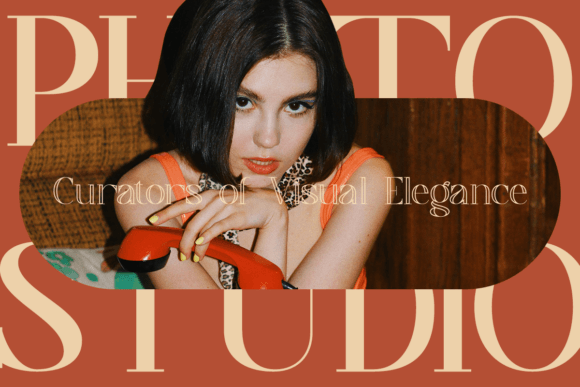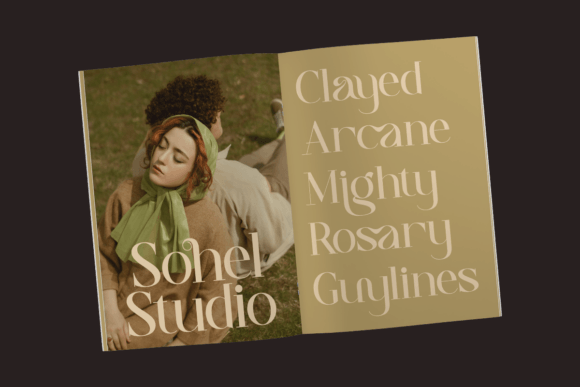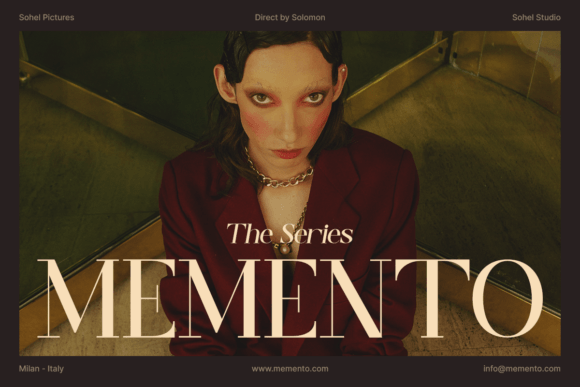
Introduction to Regal Flourish Font
Have you ever stumbled upon the perfect design element that elevates your creative project from ordinary to extraordinary? For many designers, that moment comes when they discover the perfect font. For me, it was when I stumbled upon the Regal Flourish Font – a masterpiece that combines classic elegance with a touch of decorative charm. Its refined design and beautiful proportions make it an instant favorite for luxury branding, packaging design, and editorial layouts.
As a valuable resource for designers, the Regal Flourish Font offers a unique blend of style and functionality. With its strong readability at various sizes, it’s perfect for logos, business cards, posters, and more. Plus, its multi-language support makes it a versatile choice for global projects. Whether you’re working on a high-end design project or simply looking for a high-quality font to elevate your creative work, the Regal Flourish Font is an excellent choice.
Key Features of Regal Flourish Font
- Unique, high-quality design perfect for adding a touch of elegance to your creative project
- Perfect for adding a touch of sophistication to invitations, posters, and other creative projects
- Supports a wide range of languages, making it a versatile design resource for global projects
Honest Review: Regal Flourish Font
I recently had the chance to work with the Regal Flourish Font, and I must say it’s been a delightful experience. This font is perfect for designers who are working on creative projects that require a touch of elegance and sophistication.
What works well: ✨ The Regal Flourish Font is incredibly versatile and can be used for a variety of design projects, from wedding invitations to luxury branding. The high-quality design ensures that the font looks stunning on both light and dark backgrounds. I also appreciated the transparent background option, which made it easy to integrate the font into my design without any issues.
- High quality: The font is designed with precision and attention to detail, resulting in a beautiful and professional finish.
Limitations: ⚠️ While the Regal Flourish Font is an excellent addition to any designer’s toolkit, it may not be suitable for projects that require a more casual or playful tone. Additionally, some users may find the font to be a bit too ornate for certain design applications.
Overall impression: I’m thoroughly impressed with the Regal Flourish Font, and I would highly recommend it to designers who are looking for a high-quality, elegant font for their creative projects.
The Regal Flourish Font is a high-quality design resource perfect for adding a touch of elegance to your creative project. This font features a transparent background, making it ideal for use on images or videos with complex backgrounds.
To get the most out of the Regal Flourish Font, experiment with different font sizes, colors, and combinations to find the perfect look for your project.
The Regal Flourish Font is ideal for use in various design projects, including:
- Business cards and brochures
- Special occasion graphics and images